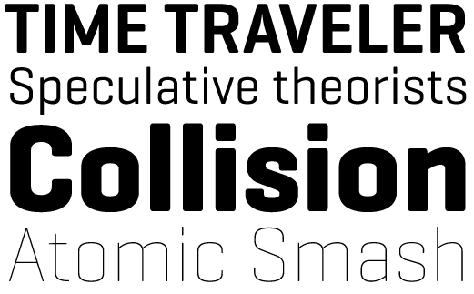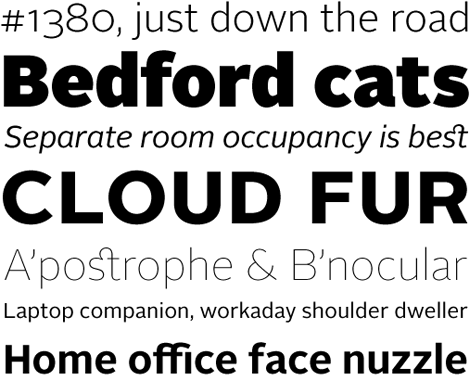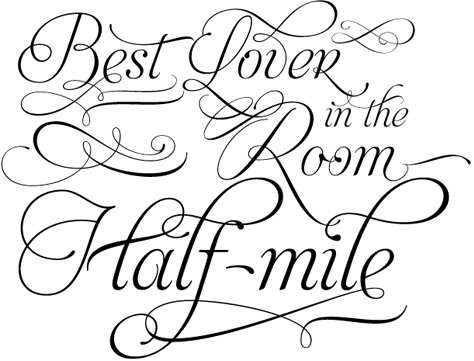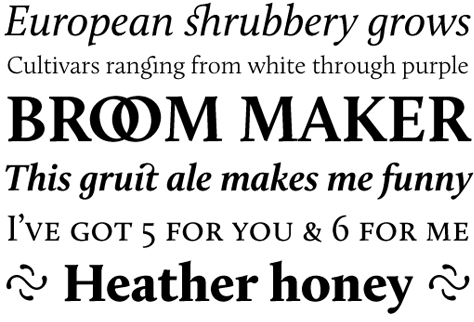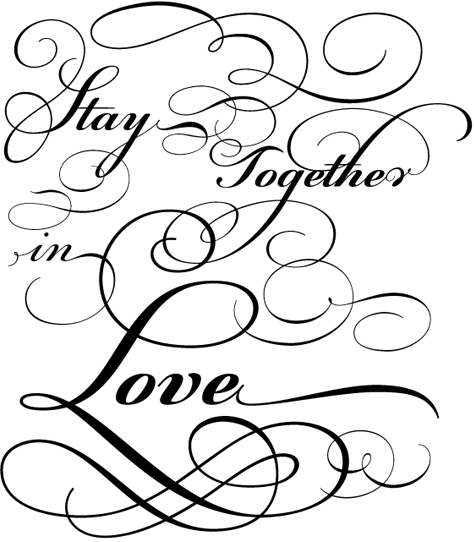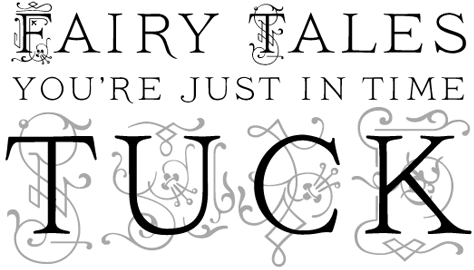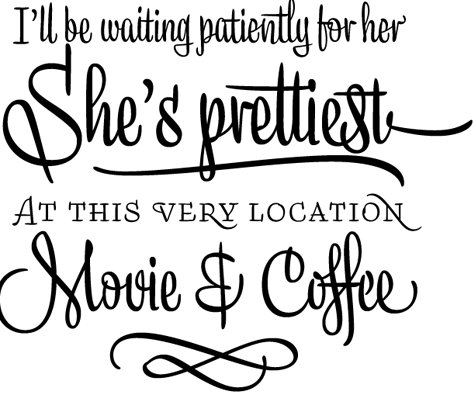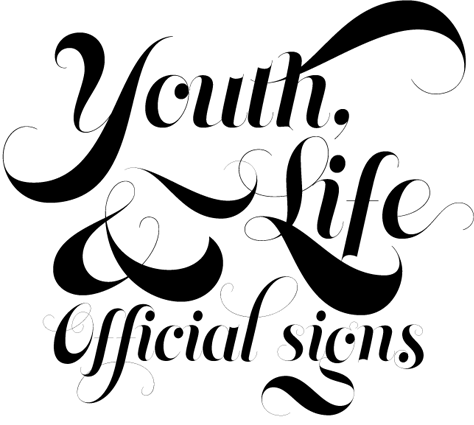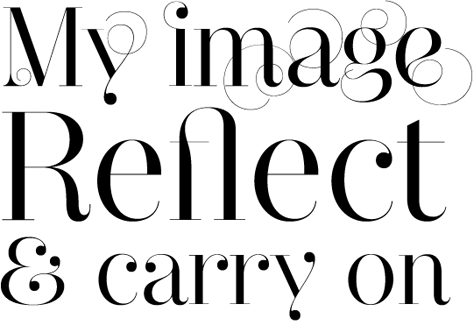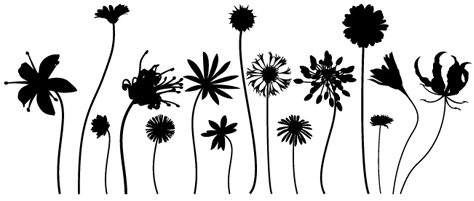
10 Most Popular Fonts of 2009
Catch up on recent trends by surveying the ten best-selling fonts of the past year on MyFonts.com. Do you have any of them?
This list of last year’s ten most successful typefaces from a variety of genres is based on MyFonts.com sales.
Champion Script Pro
Based in Athens, Greece, the Parachute foundry joined MyFonts in April 2009 and immediately got the attention of our quality-conscious customers. Sophisticated, original text families such as Beau Sans and Centro became great sellers. The icing on the cake was Champion Script Pro, the year’s most successful formal script font. Based on the manuscripts of the 18th-century English calligrapher Joseph Champion, it was announced as "the most advanced and powerful script ever made." It sounds pretentious, but there’s truth in it. With two weights, each loaded with 4,280 glyphs (!), Champion Script probably has the largest number of alternate glyphs ever offered in one script font. Its functionality is powered by nifty OpenType programming. Read the Champion Script Pro article to learn more about the font’s design principles and features.
Geogrotesque
It was introduced shortly before New Year, and as 2009 took off, so did Geogrotesque. Not only is it the year’s most popular squarish sans-serif, it was also the all-around best-selling new font. With Geogrotesque, Eduardo Manso produced one of the most interesting recent sans-serif designs, striking a smart balance between geometry and user-friendliness. Based on a simple basic shape — a rectangle with curved top and bottom — the typeface is pure and regular without becoming bland or mechanical. With seven weights, Geogrotesque is a great headline family for magazines or annual reports, but will also work in text of intermediate length and point size. Its companion Geogrotesque Stencil offers an unusual and flexible set of headline fonts.
Liza Pro
It’s no secret that Liza Pro comes from the same type design collective that produced the MyFonts logo, recently listed as one of the year’s most successful new identities. So it is with some pride that we announce (based on objective sales figures) that Liza Pro is the brush script of the year. Its designers — the multi-national trio that calls itself Underware — set impressive standards for the genre years ago with their seminal Bello. Liza Pro uses the wizardry of OpenType architecture to create a font that approaches human hand lettering as closely as possible. When using an OpenType-optimized design program, Liza will create the optimal combination for each word out of a stock of 4,000 handcrafted glyphs; automatic substitution will make your text look different and fresh all the time. Check out the introductory and the connoisseurs’ PDFs for details on how Liza’s five styles work together.
Calluna
Jos Buivenga’s Calluna has been doing very well ever since its midsummer release, and consequently wins the crown for most successful serif text font of the year. Calluna was initially a by-product of the design process leading up to Buivenga’s popular Museo typeface. While trying out different serif shapes, the designer chanced upon the possibility of giving his font "slab-serifs with a direction." Instead of using the resulting asymmetrical serifs for a new Museo version, Buivenga incorporated the concept in a completely new typeface. Calluna was the designer’s first serifed text family — a robust, clean and contemporary face with interesting details and a forward flow. Its recent use as a book typeface has demonstrated that it works perfectly even at small point sizes; thanks to its striking details it also acts as a display typeface font with personality.
Memoriam
Memoriam, our calligraphic display font of the year, was originally commissioned for the December 2008 "memorial" issue of New York Times magazine. Canada Type’s Patrick Griffin drew a luxurious calligraphic poster font loosely based on ideas found in the foundry’s Jezebel and Treasury typefaces. A great success with the editors and designers, Memoriam ended up being used all over the magazine instead of just the cover and became an instant hit as soon as it was made available for retail at MyFonts. Memoriam contains a lot of alternates, which are distributed across three separate fonts for the PostScript and TrueType formats. Memoriam Pro, the OpenType version, combines all three fonts plus some extras, in one OT-programmed file.
Alright Sans
A year ago we joked that 2008 could be dubbed "The Year of the Sans." The trend continues — the 2009 crop of sans-serifs was again overwhelming. What did change was the originality of the designs. While many of 2008’s sans-serif fonts went for the dry and super smooth approach, this past year there was a lot of variety, and some new flavors. Take Alright Sans: an amalgam of what are usually referred to as humanist and geometric models. Representing a new category in these font-of-the-year awards, Okay Type’s Alright Sans is the most successful workhorse sans-serif of 2009. It is lucid and modest without being bland or stiff. It is also open and relatively wide. Alright Sans comes with a robust set of typographic features, such as small caps (in both the roman and italic), eight sets of figures, case-sensitive punctuation and more.
Ivory
Inspired by a titling typeface from an 1882 compendium about fruit, Ivory is a carefully crafted combination of classical capitals and fancy ornaments. For their digital version, FaceType artfully separated the pears from the apples… in other words: the letters and the ornamentation were accommodated into separate fonts. By layering a text set in "NoSwashes" over the same text set in "Swashes", wonderful two-color headlines can be created. For those who simply want to set one-color titles using ornamented characters as initials, there’s Ivory "Headline", a font that has the swashed capitals in the uppercase section, and the straight ones in the lowercase section. Ivory has been quite a success: it is the ornamented font of the year.
Narziss
Of all the recent trends in type design, the “swirligig” fashion is one of the most remarkable and exuberant. Like an animated cartoon telling tales of unstoppable vegetation, typeface after typeface has grown flamboyant swashes and curls. It works when done tastefully, as in Narziss, the serif display font of the year. Not unlike Memoriam from Canada Type, Hubert Jocham’s Narziss explores the extreme contrast of the neoclassical style, with thin hairlines and whimsical details — but the overall impression is hugely different. Choose the "Drops" version if you like ball terminals, and "Swirls" if you prefer your headlines curly. And if you want to set small text in a compatible typeface, use the lovely Narziss Text.
We Love Nature
London-based Kapitza joined MyFonts last spring, and we were delighted. The studio is run by sisters Nicole & Petra Kapitza, who share a passion for everyday life, minimalism, patterns and color. They specialize in the creation of versatile picture and ornament fonts. Their collection includes meticulously drawn silhouettes of people, geometric dingbats and snow crystals. Their most popular sets are those that picture botanical forms. We Love Nature was a big success: a vaseful of lively stem flowers. The drawings are equally striking as single illustrations and in multi-colored combinations. We Love Nature is MyFonts’ picture font of the year.